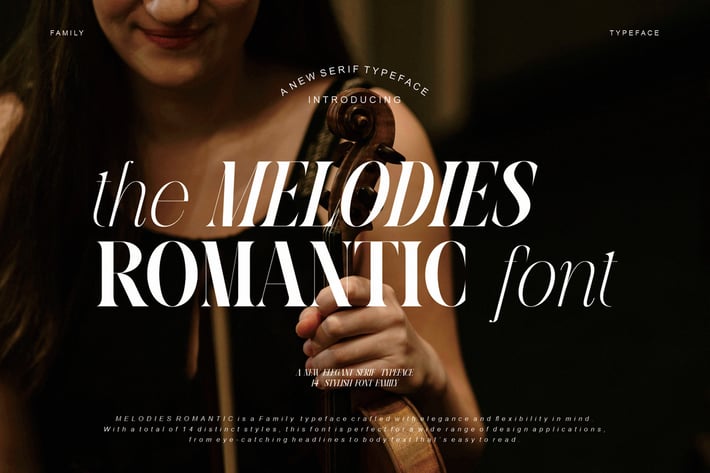
Melodies Romantic Elegant Serif Typeface
Melodies Romantic is a Modern and stylish serif family, which includes14 style fonts, bold italic fonts, from thin to extra bold, best used for titles, descriptions, logos, branding, magazines, product packaging, and invitation. Its stylish alternations and bindings with clean lines and smooth curves add an extra touch of class to any project. make this font the perfect partner for any project.